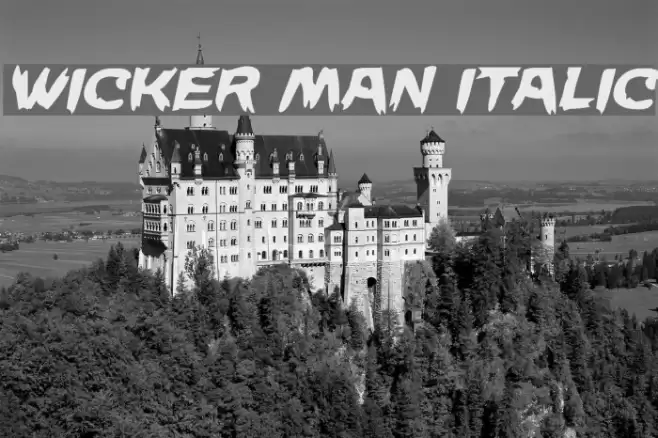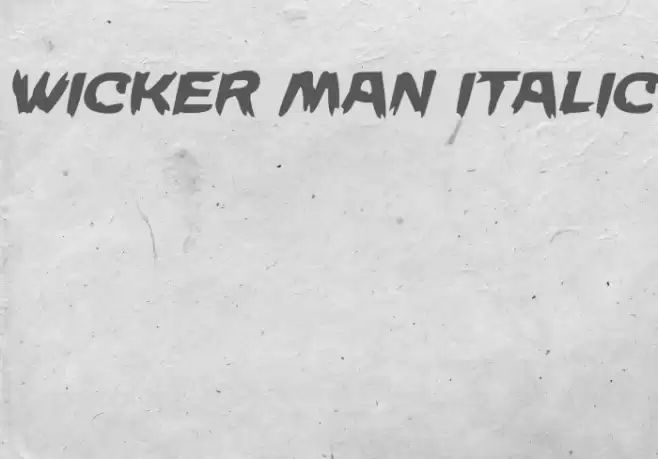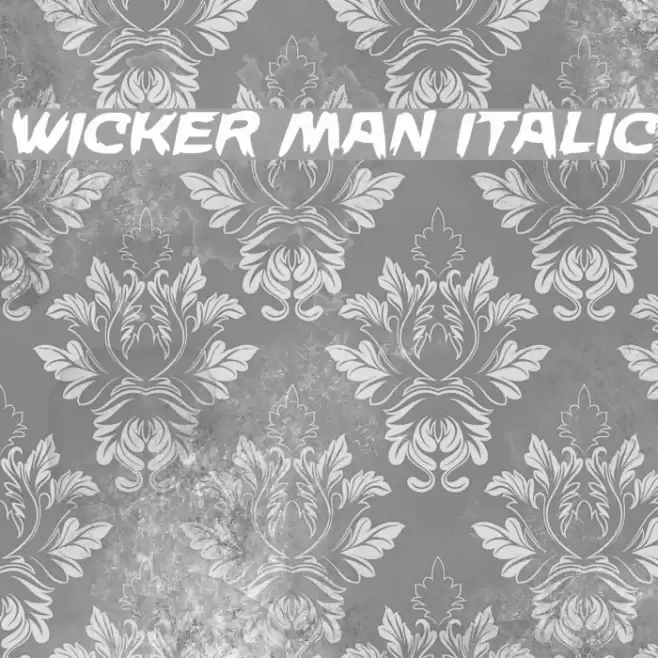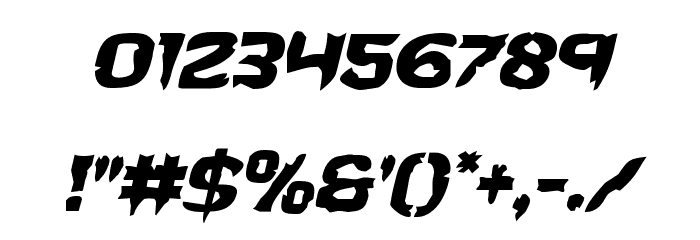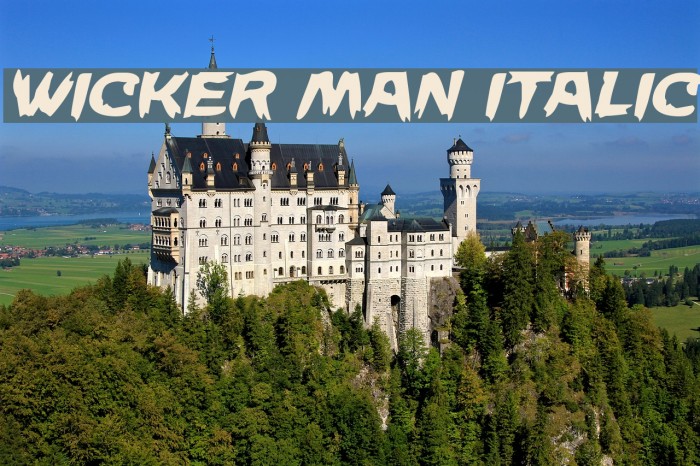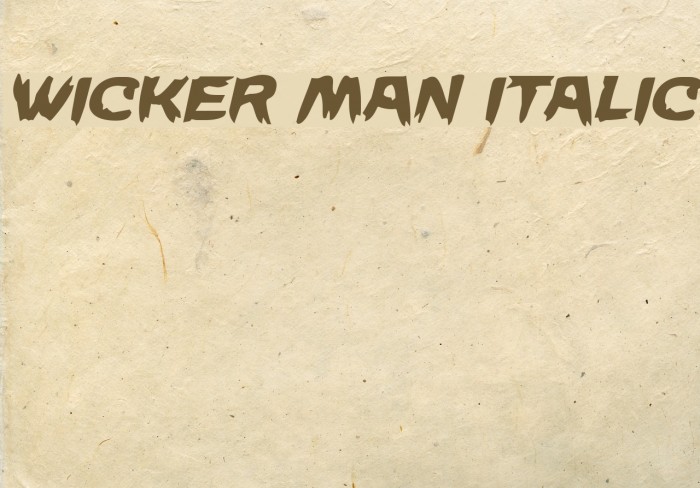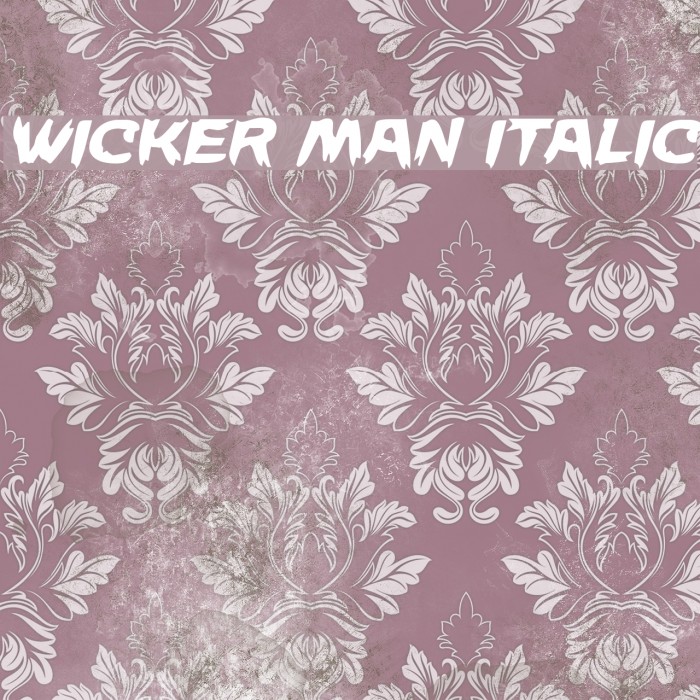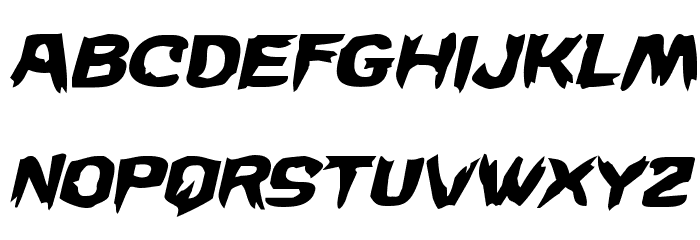
Wicker Man Italic Font
Wicker Man Italic Description
This font features a bold and dynamic style with sharp, angular edges and a slightly distressed appearance. The letters are italicized, giving them a sense of motion and urgency. The uppercase and lowercase characters maintain a consistent style, with the uppercase being more pronounced. Numbers and special characters are designed to match the overall aesthetic, making them suitable for impactful designs. The font's unique style is reminiscent of a rugged, adventurous theme, perfect for projects that require a bold statement.
A bold, italicized font with sharp, angular edges and a distressed look from Uncategorized fonts.
- Proposed Projects: Ideal for movie posters, video game covers, adventure-themed branding, and event promotions.